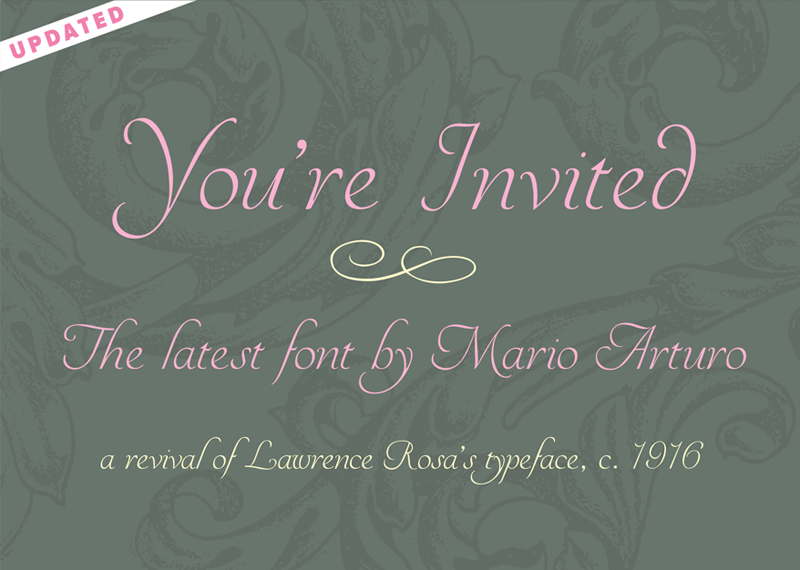
Preview and download You're Invited Font. Created by Mario Arturo in Script Calligraphy styles with Donationware license.
Font name: | You're Invited |
Author: | Mario Arturo |
Note by Mario Arturo | |
Traced from the 1916 book LETTERING by Thomas Wood Stevens. The typeface is designed by Lawrence Rosa. Refining by Mario Arturo. This font is free for non-commercial use and donationware for commercial use. Make a donation through PayPal my account there is: turoturom@yahoo.es. Please, donate in Euros IF this happens to be your local currency. |